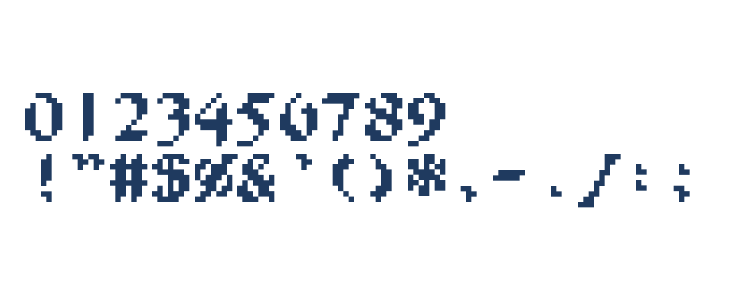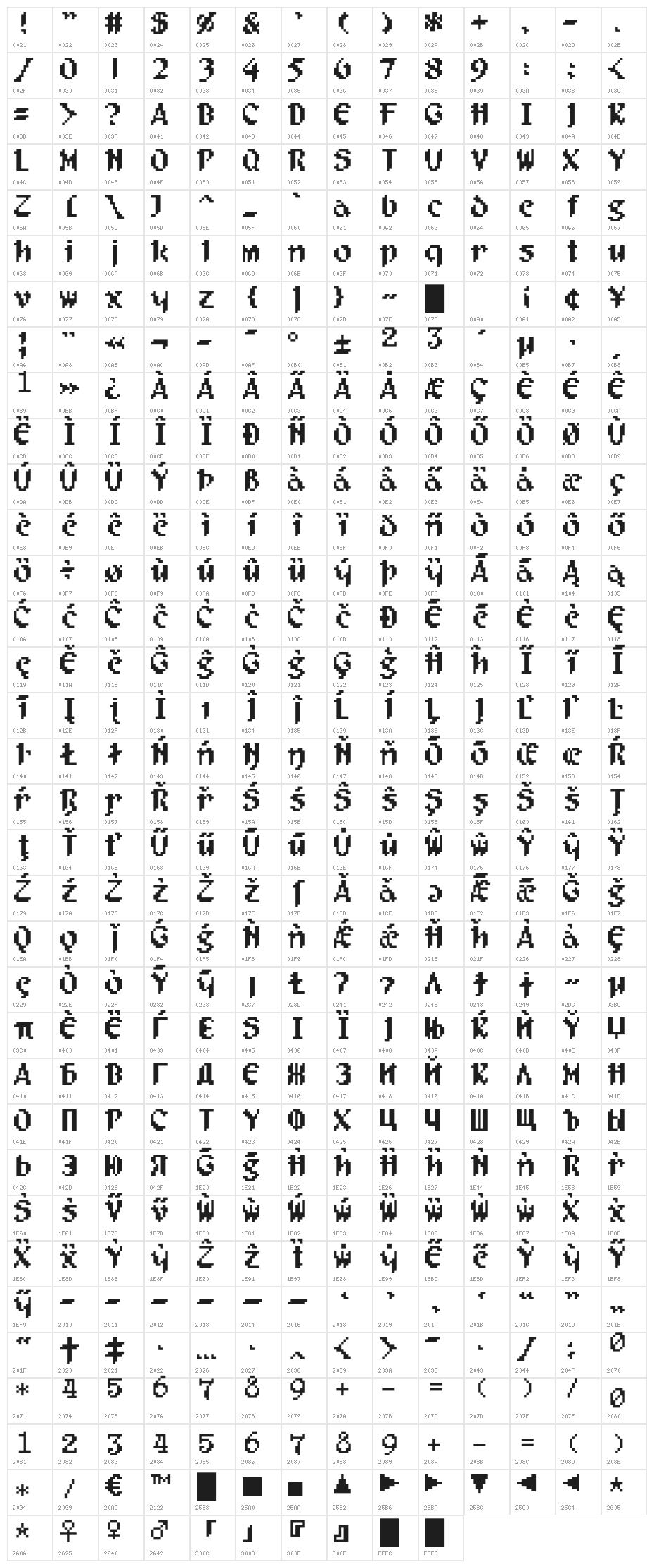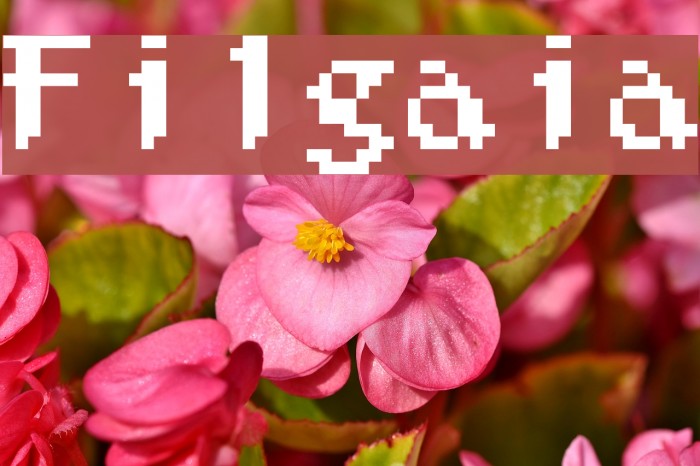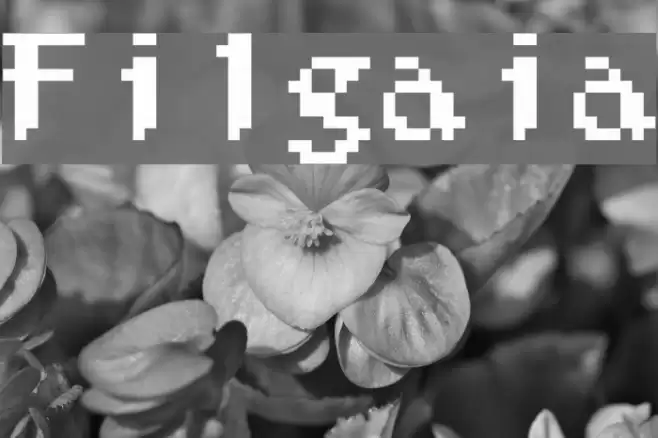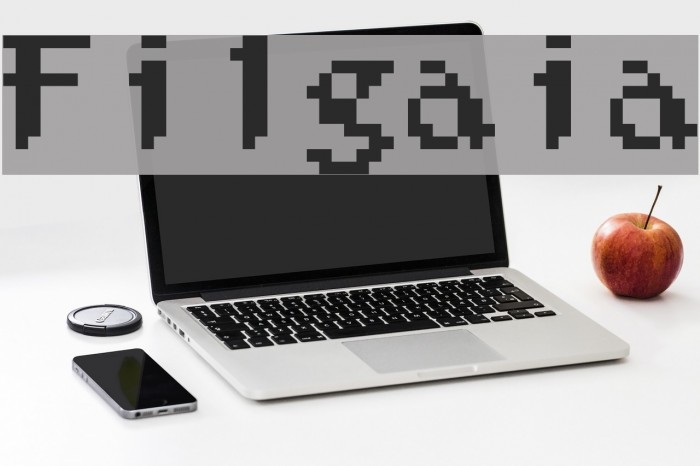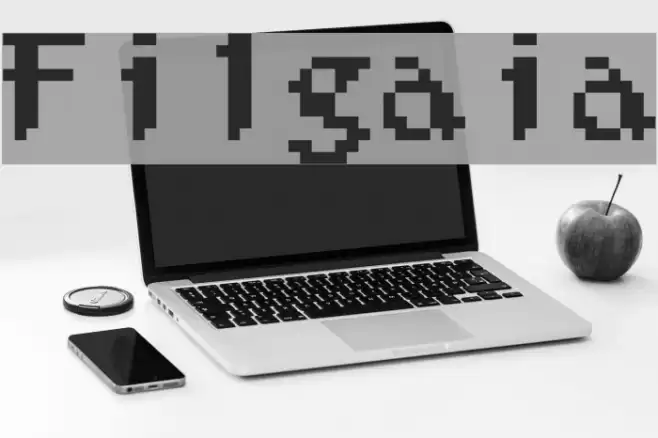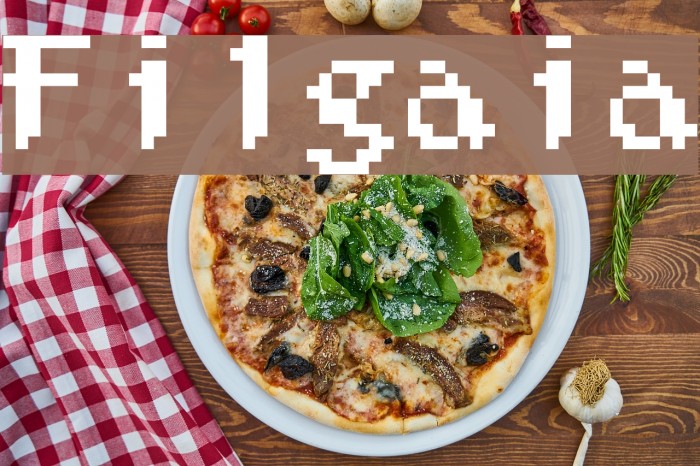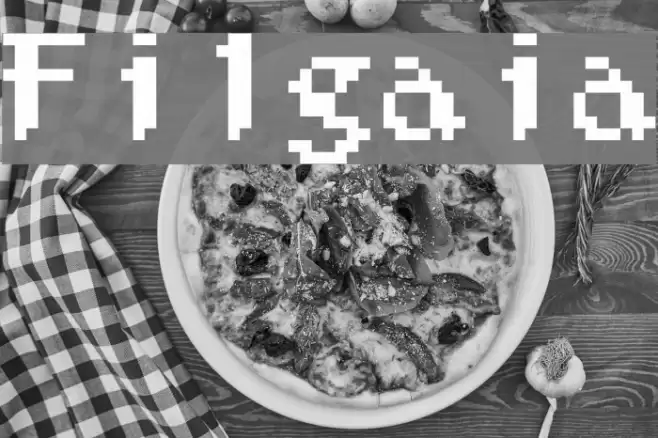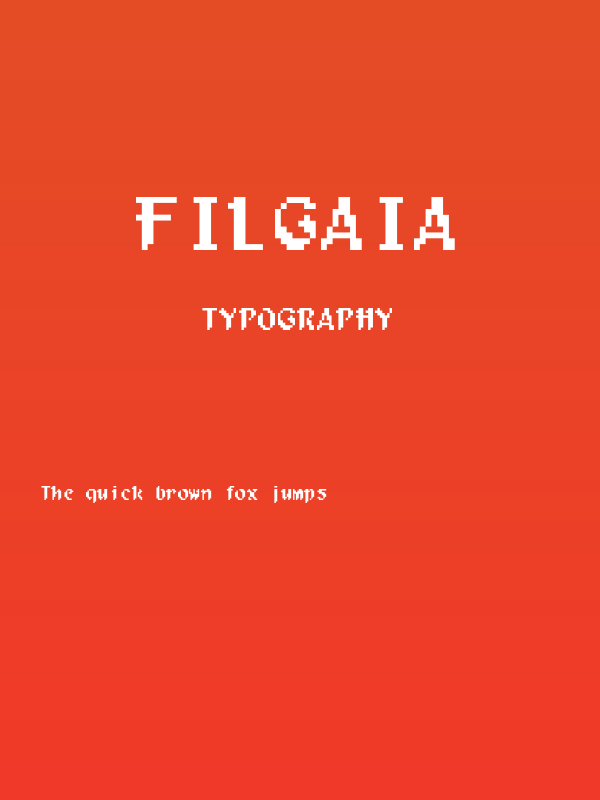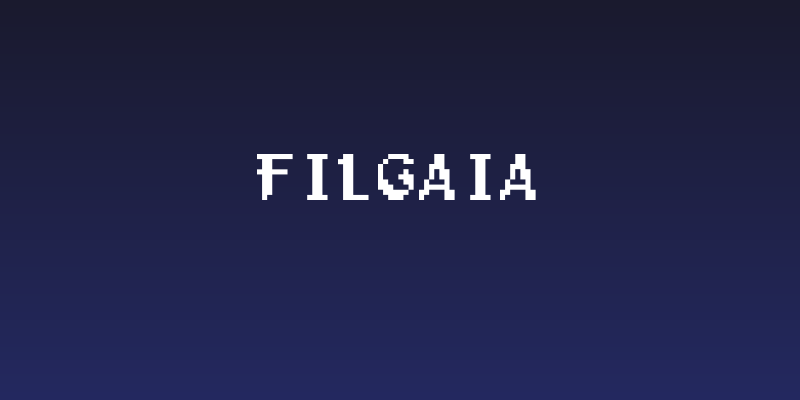
Filgaia Font
Filgaia Description
This font features a pixelated, blocky style reminiscent of early digital displays and retro video games. Each character is composed of distinct square pixels, giving it a nostalgic and playful appearance. The uppercase and lowercase letters maintain a consistent height, while the numbers and special characters follow the same pixelated design. The font's geometric structure and uniformity make it ideal for projects that aim to evoke a sense of nostalgia or a retro aesthetic. Despite its pixelated nature, the font remains legible and clear, making it suitable for both display and text purposes.
| Use Case | Headlines, Logos, Digital Art |
| Proposed Projects | Ideal for retro video game designs, digital art projects, nostalgic branding, and any creative work that seeks to capture the essence of early digital aesthetics. |